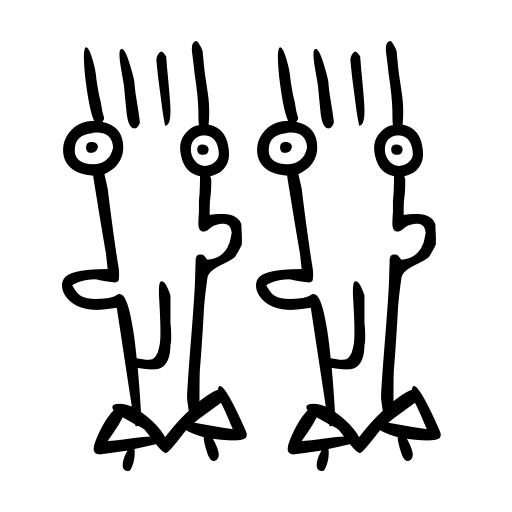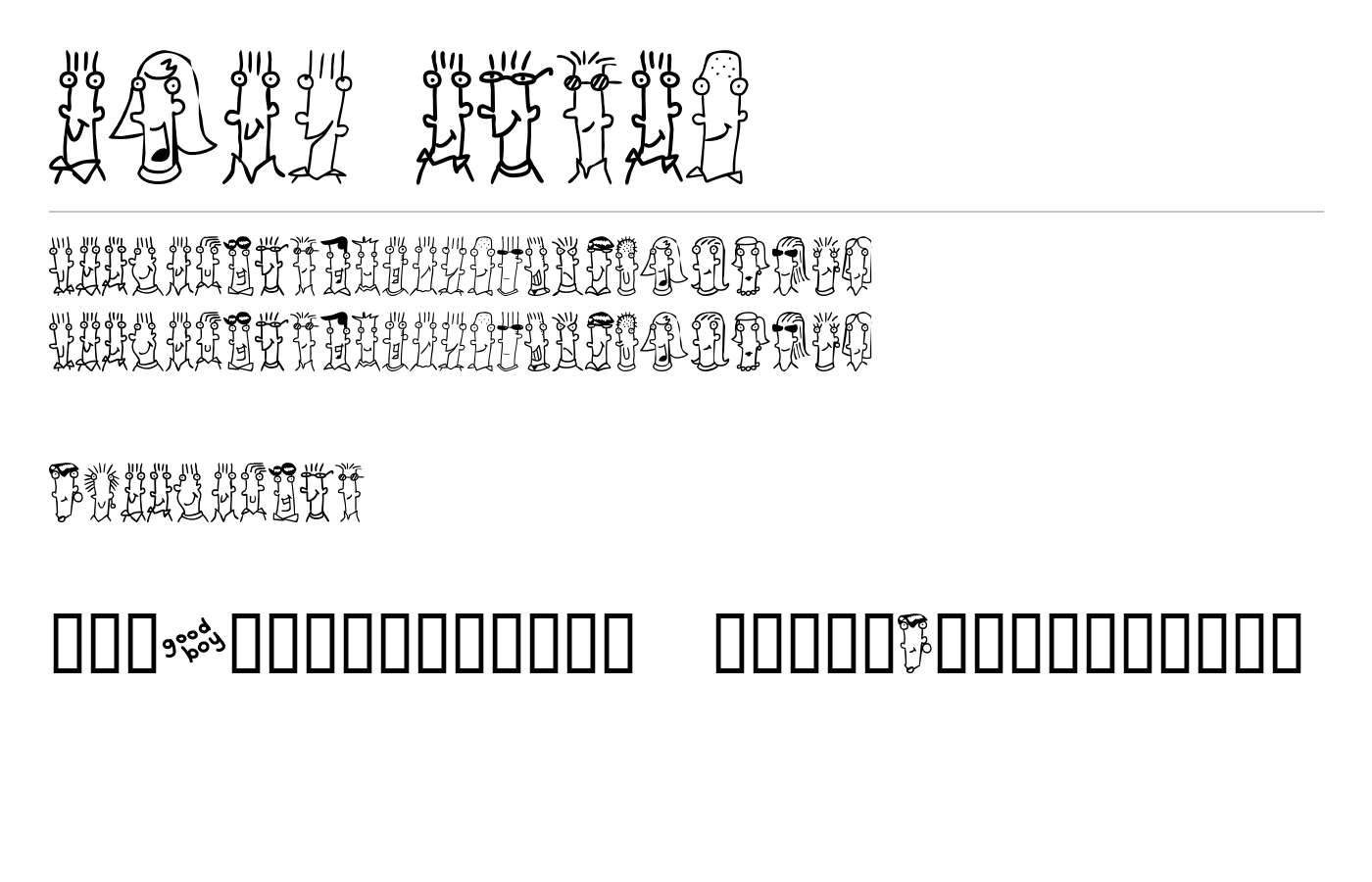
BUEN CHICO is a whimsical, hand-drawn font that features quirky, character-like glyphs instead of traditional letters, giving it a playful and artistic personality. Its light stroke and irregular shapes make it perfect for creative projects, children’s designs, or fun branding that seeks a unique and lively voice. This font shines best in display uses where its charm and humor can stand out.
BUEN CHICO Font
About BUEN CHICO Font